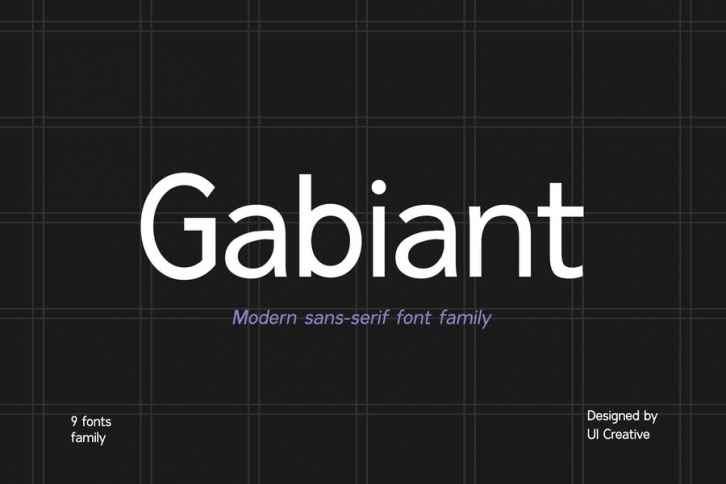
Introducing our new product the name is Gabiant Sans Serif Font Family comes with 9 different weights. Modern Sans Serif font that feels beautiful classy, elegant, and modern. This font is perfectly suited for a wide variety of projects, such as signature, stationery, logo, wedding, typography quotes, magazine or book cover, website header, clothing, branding, packaging design, and more. Also for fashion-related branding or editorial design and displays both masculine and feminine qualities.
Font Weight:
- Normal
- Italic
- Bold
- Bold Italic
- Extra Bold
- Extra Bold Italic
- Semi Bold
- Thin
- Thin Italic